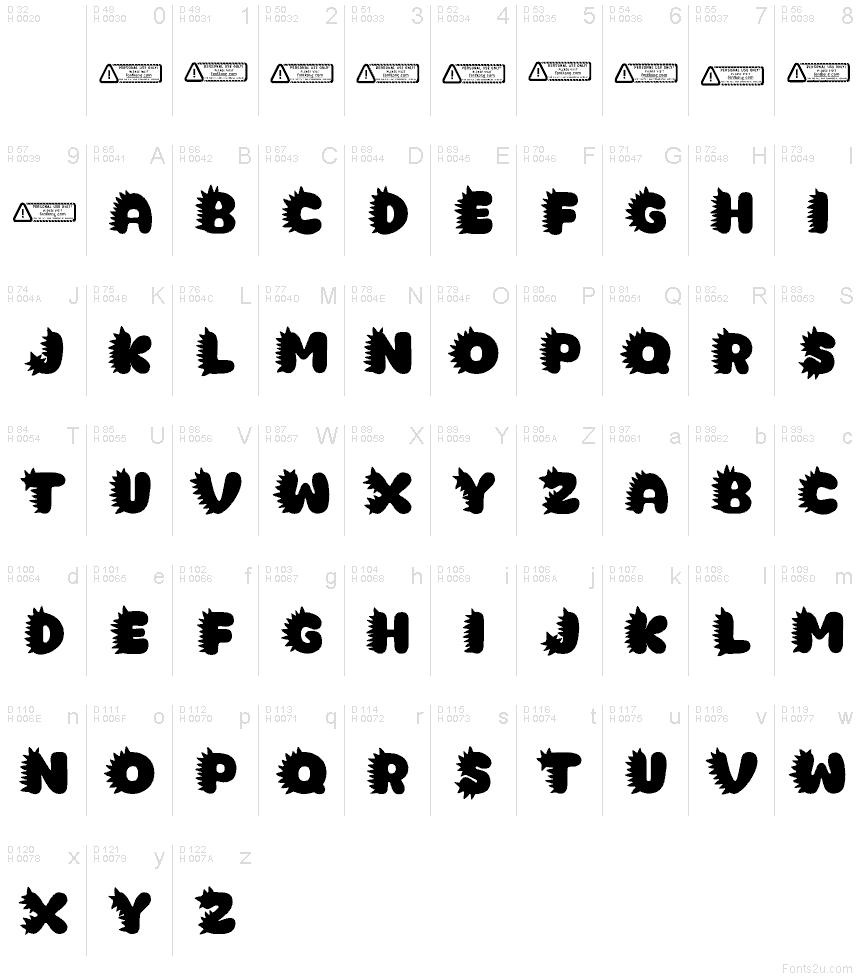
Dino Alphabet New font by Kong Font beautifully showcases the essence of dinosaurs and their interesting world with its original shapes, one inspired by fossils and dino bones. Each letter presents a picture and the combination provides an impression like no other thanks to its display style, bold weight, and expanded width.
This free decorative font is created for enthusiastic designers who need an eye-catching design. Use its organic forms for your prehistoric t-shirt designs, prints on notebooks or tote bags, branding projects related to history museums or new technology equipment projects in schools. The use cases are endless!